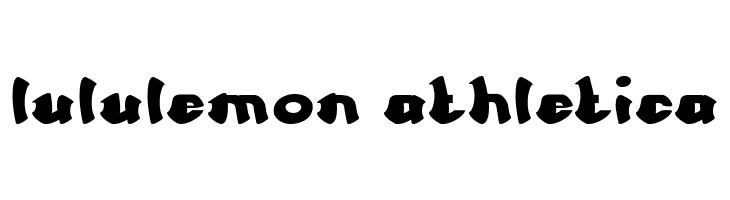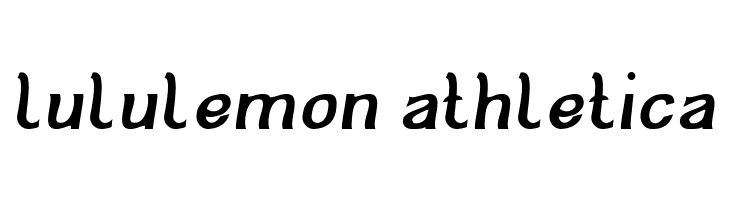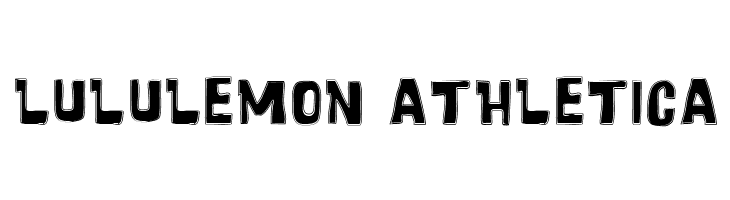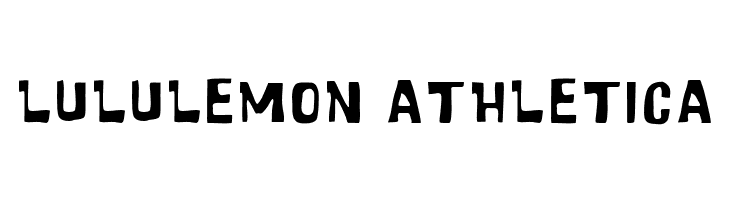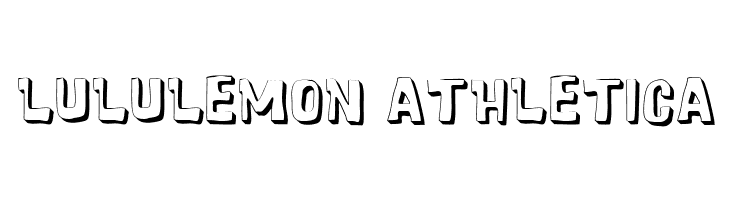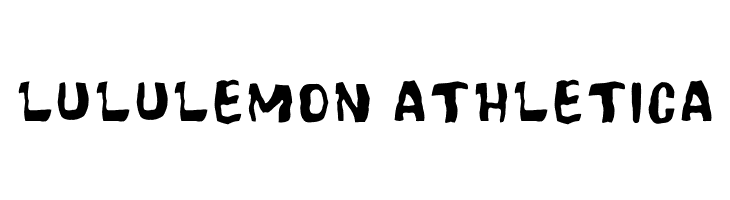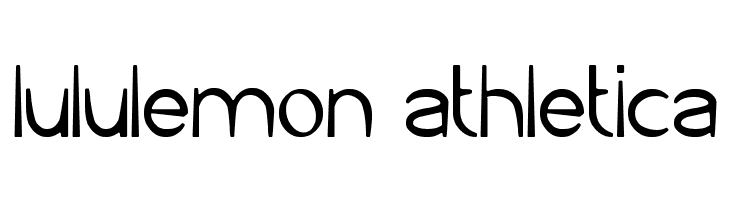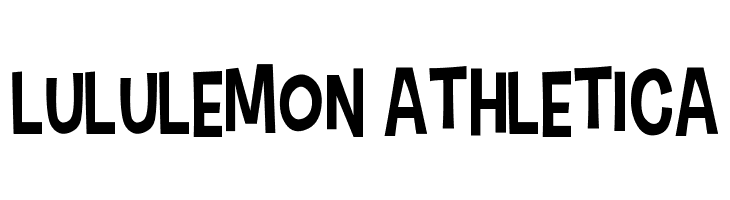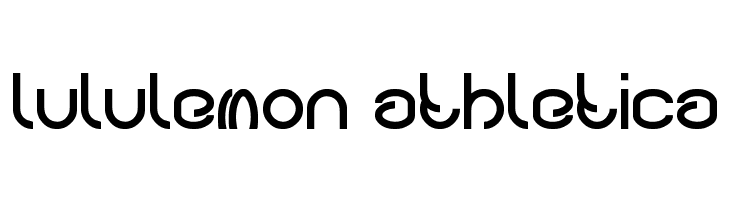
A bold, geometric font with rounded strokes and a modern aesthetic.
A bold, modern font with uniform stroke width and slightly condensed characters.
A bold, playful font with rounded strokes and a cartoonish style.
A playful, rounded font with a cartoon-like style.
A playful, rounded font with a smooth, modern design.
A bold, playful font with a cartoon-like, hand-drawn style.
A bold, 3D cartoon-style font with thick outlines and playful design.
A bold, cartoonish font with thick outlines and a playful, decorative style.
A bold, cartoonish font with wacky, hand-drawn characters.
A playful, handwritten font with a dynamic and whimsical style.